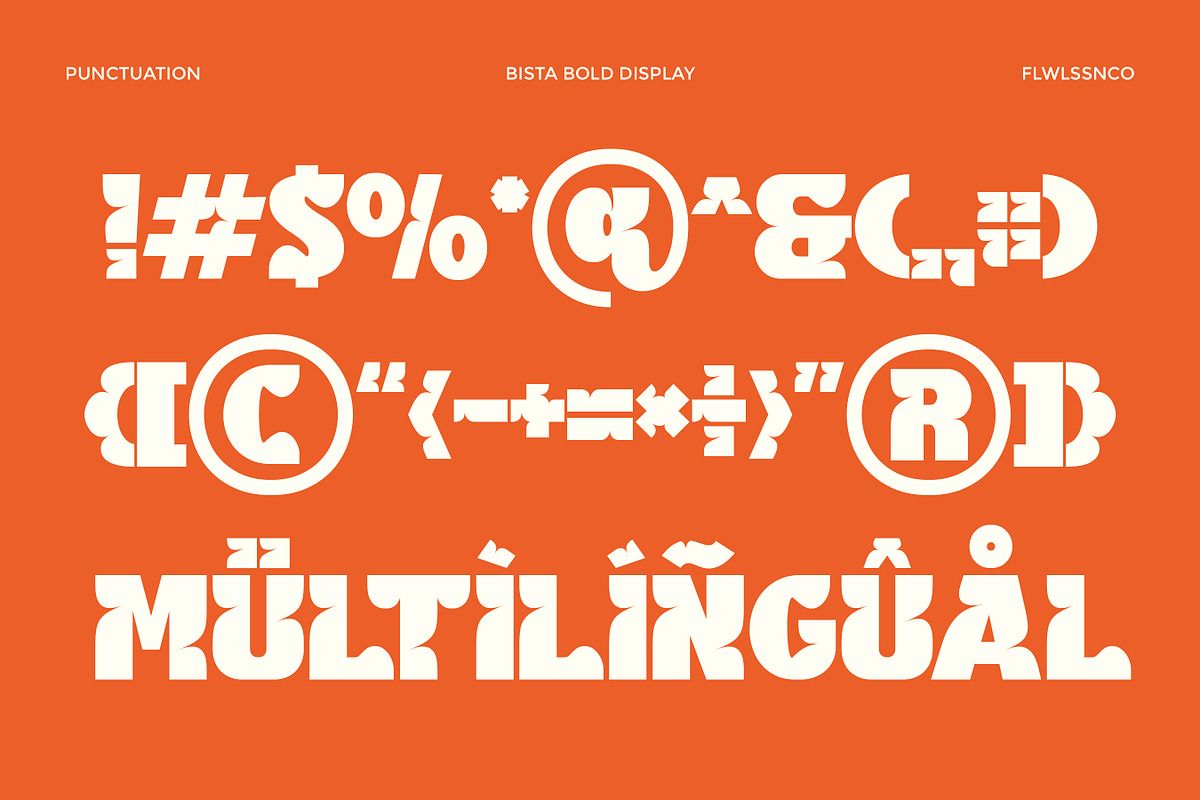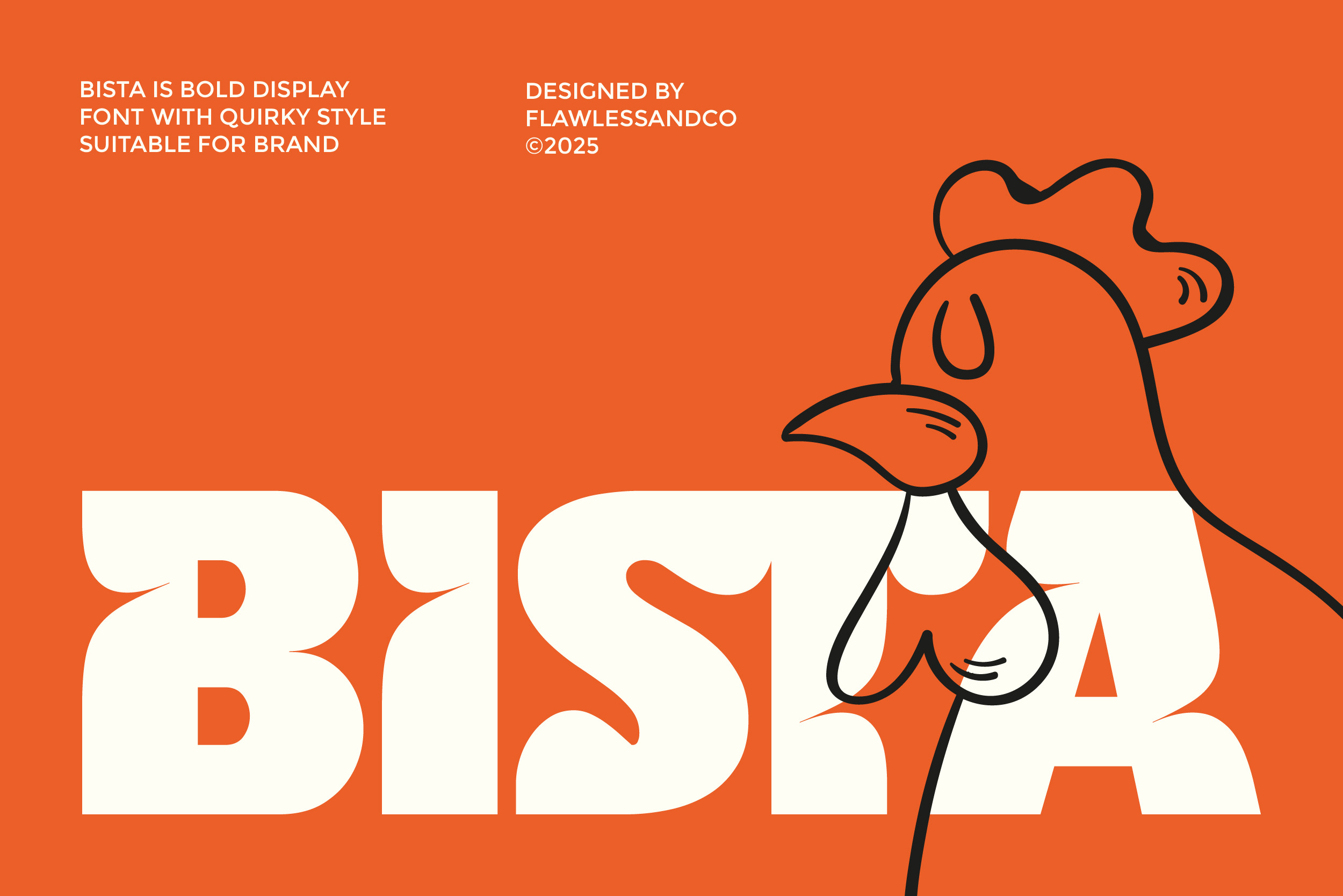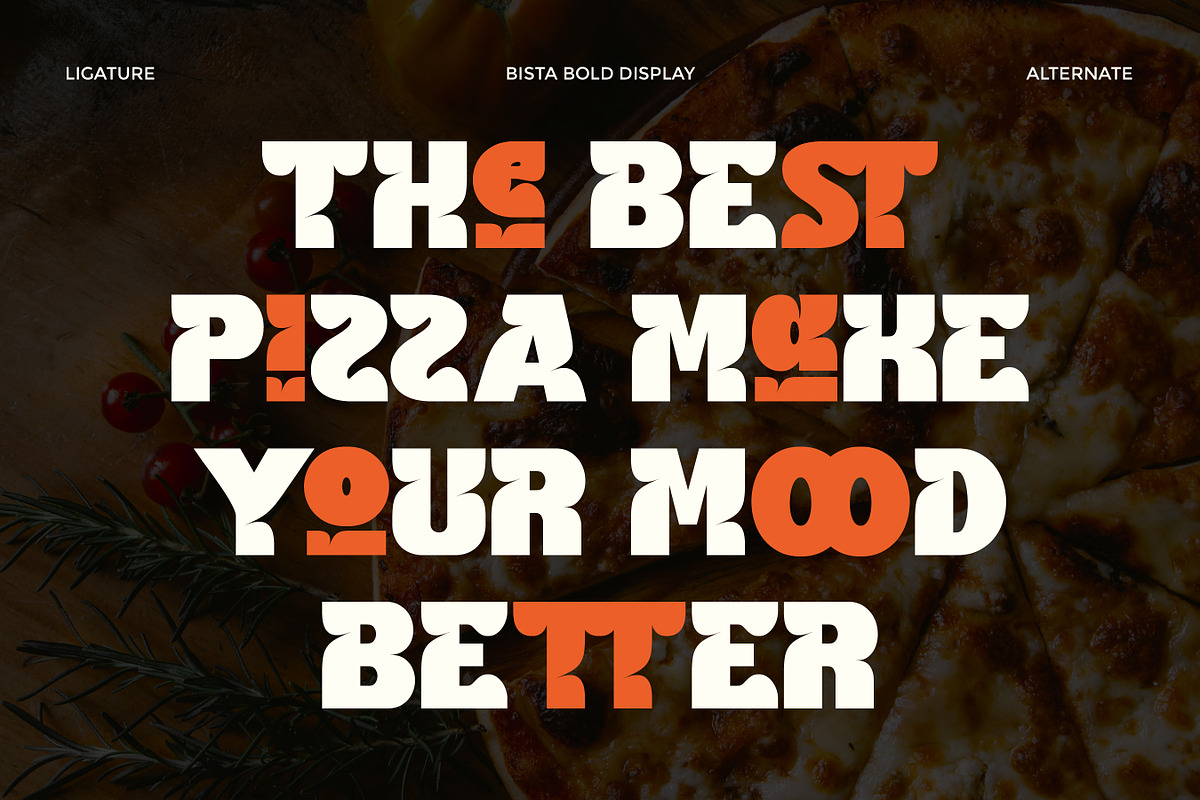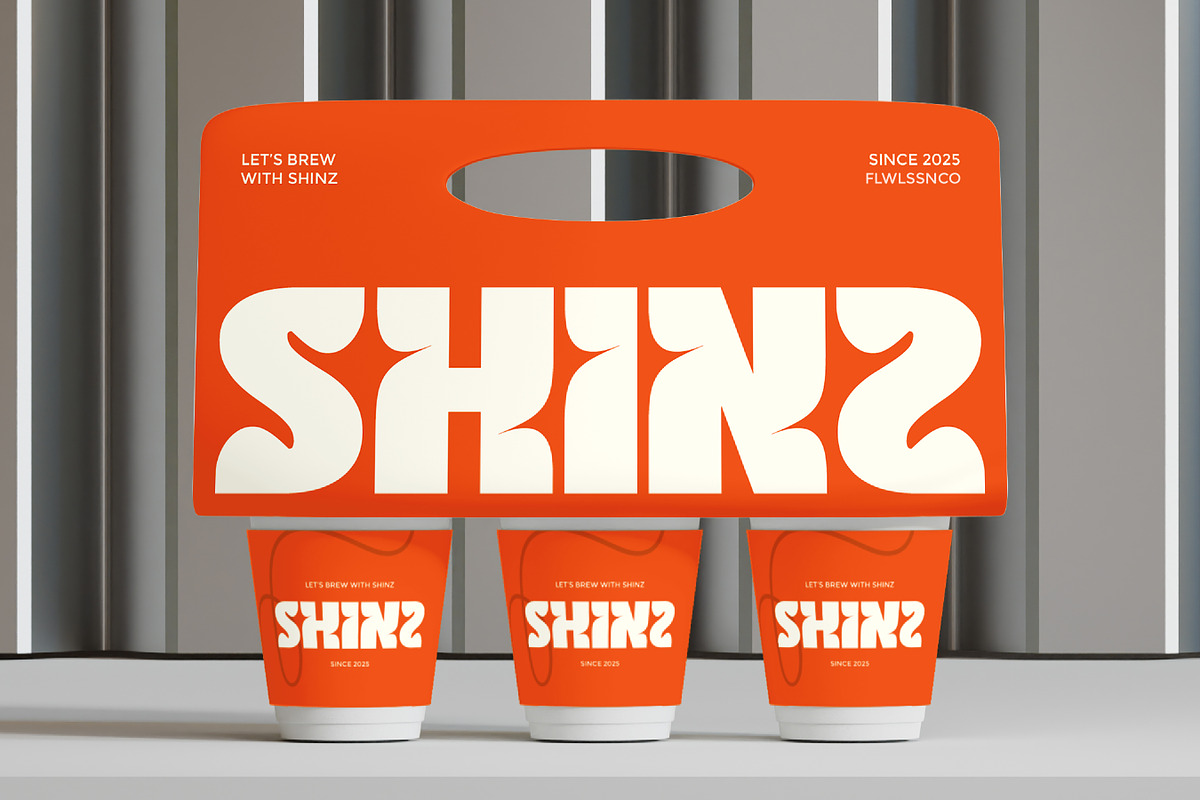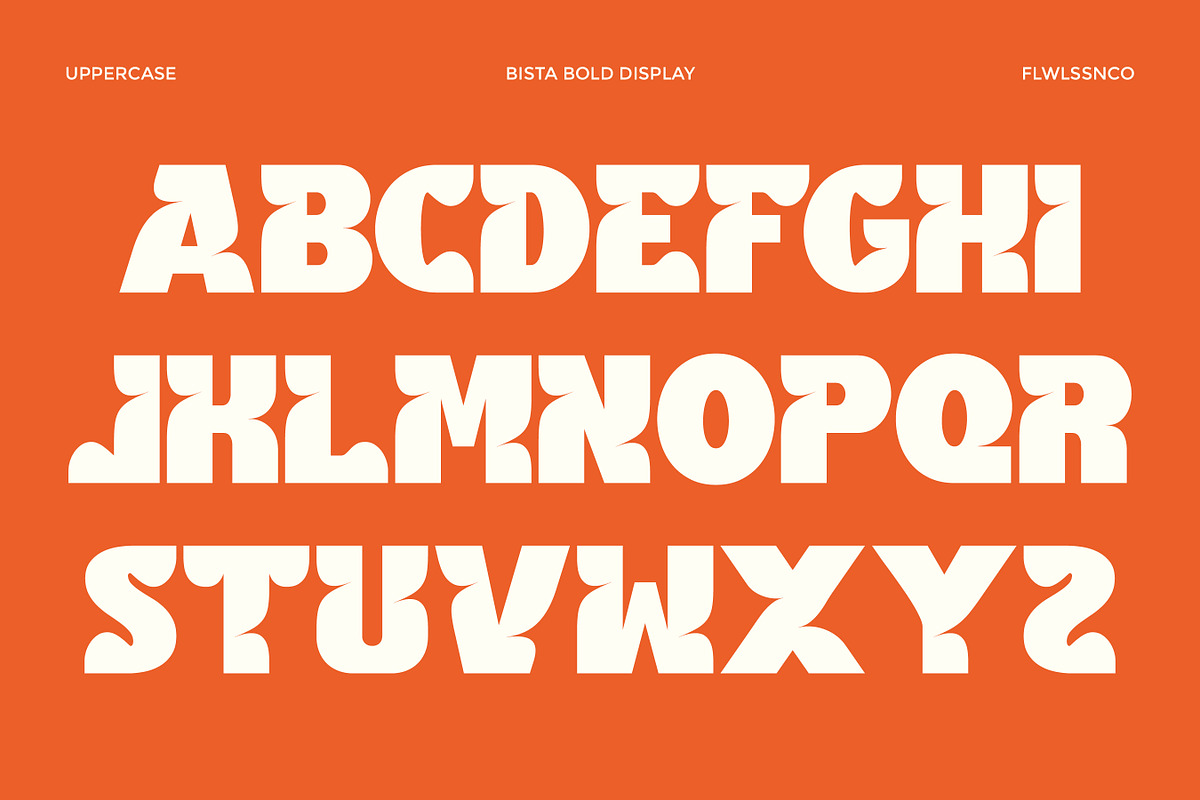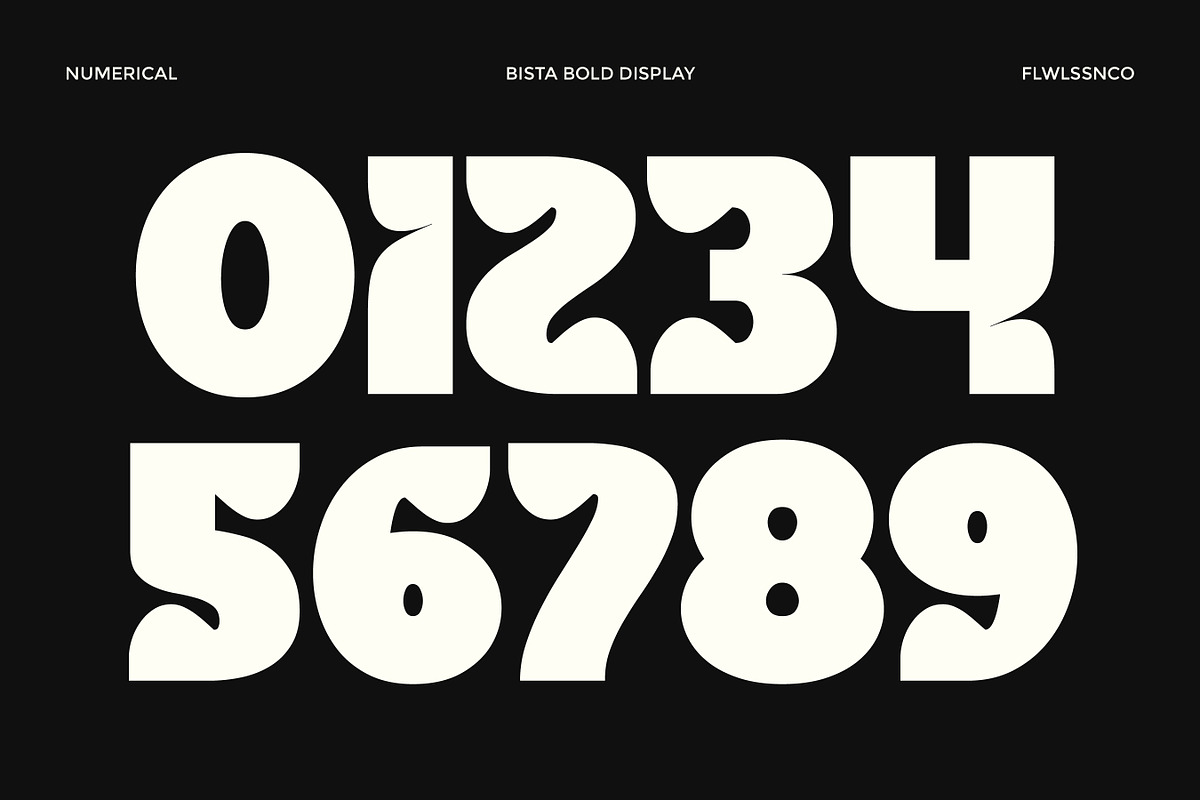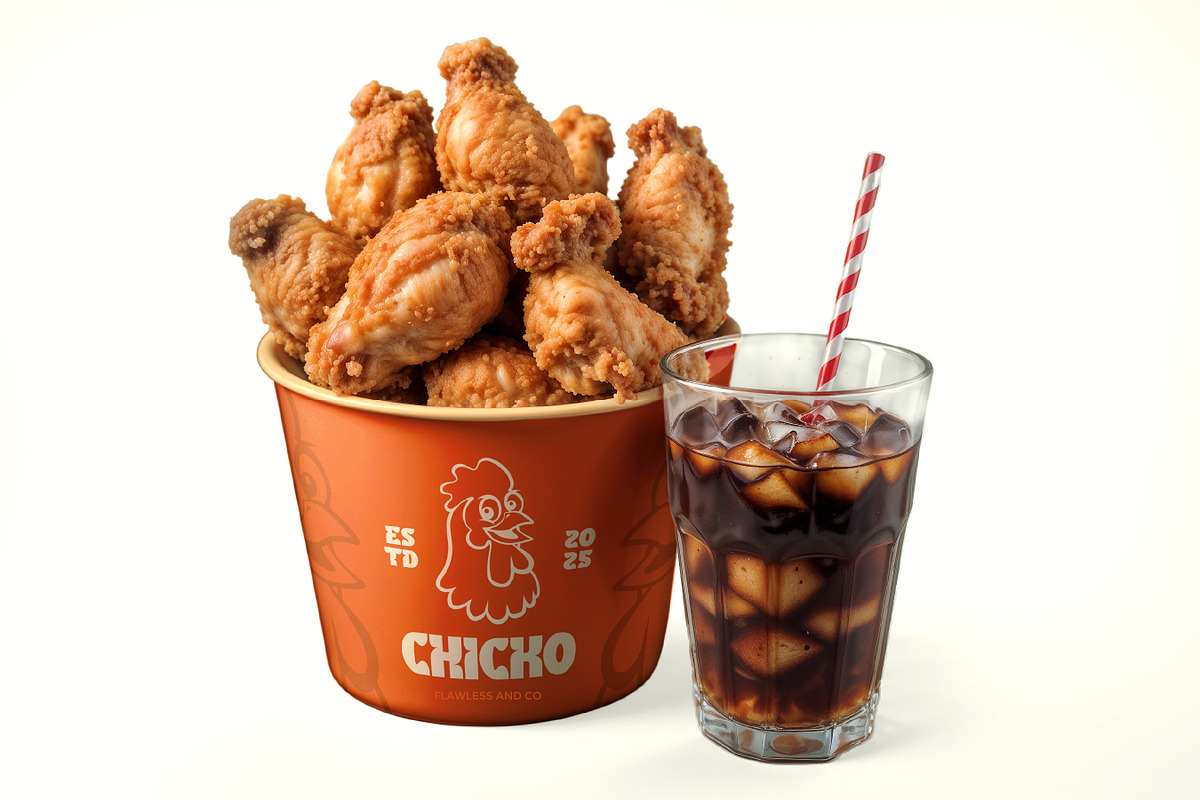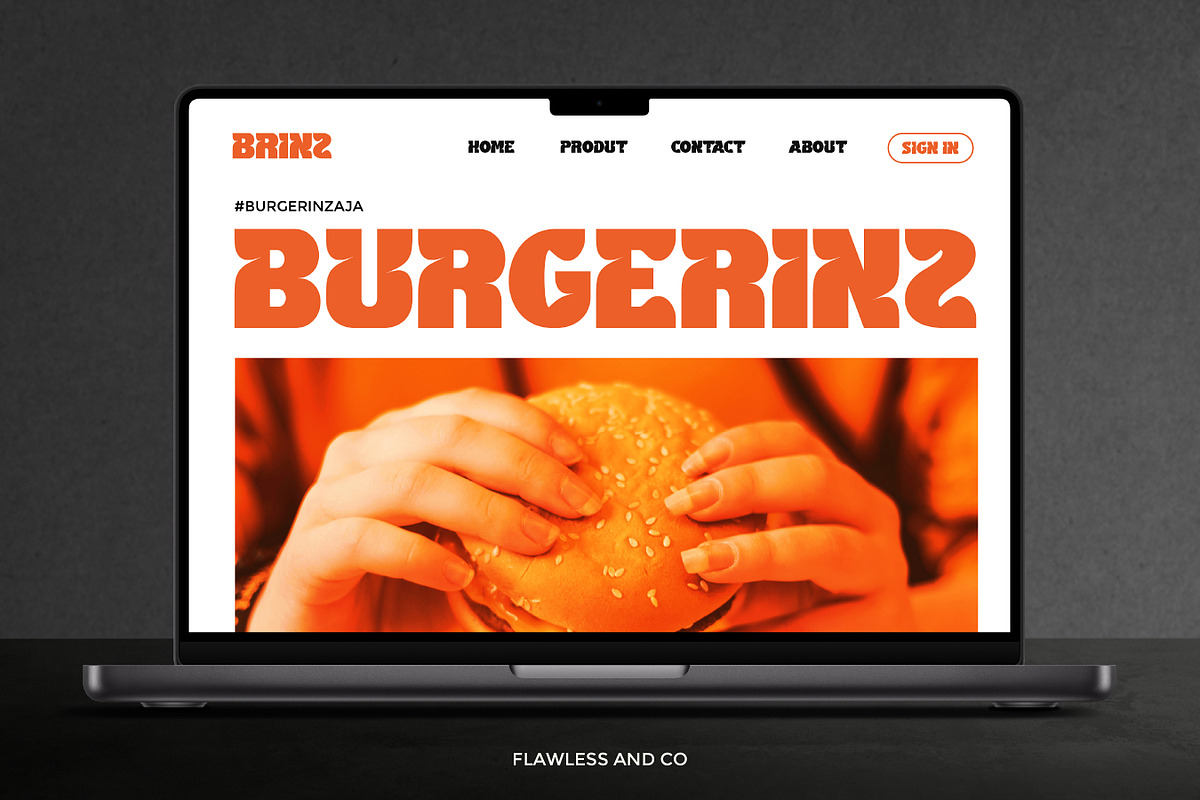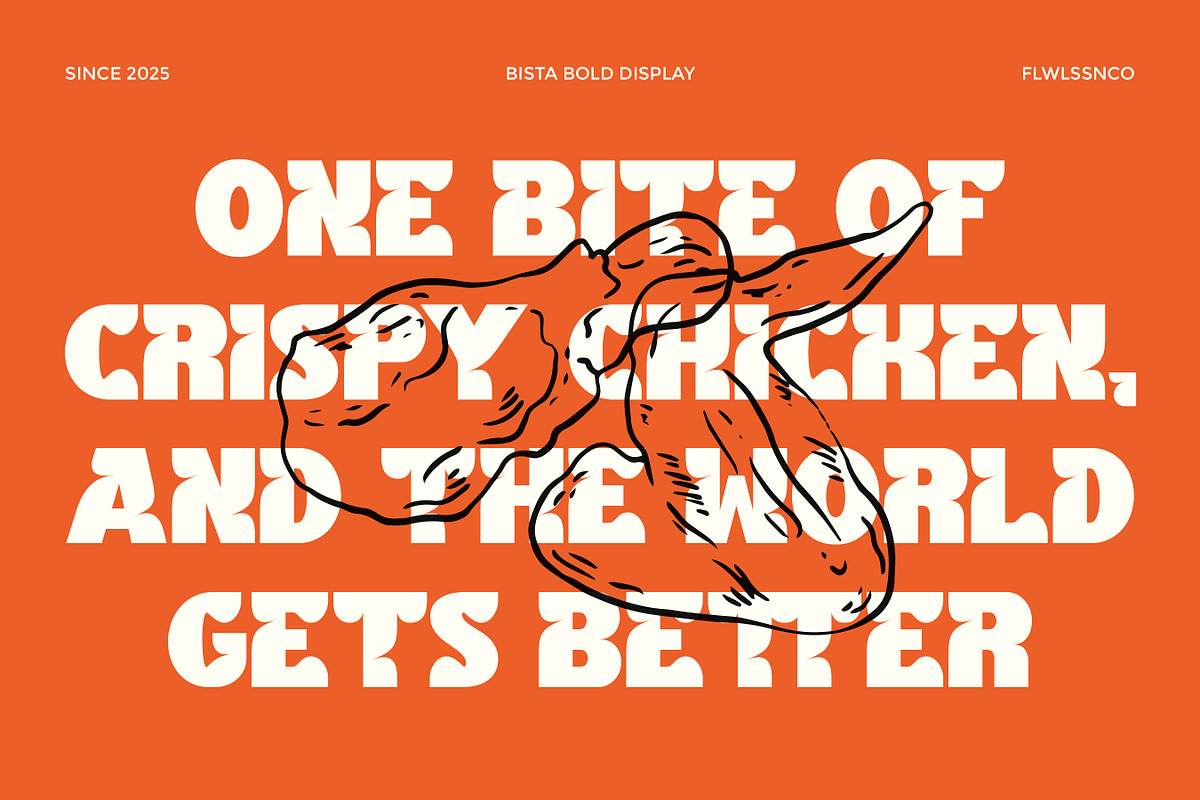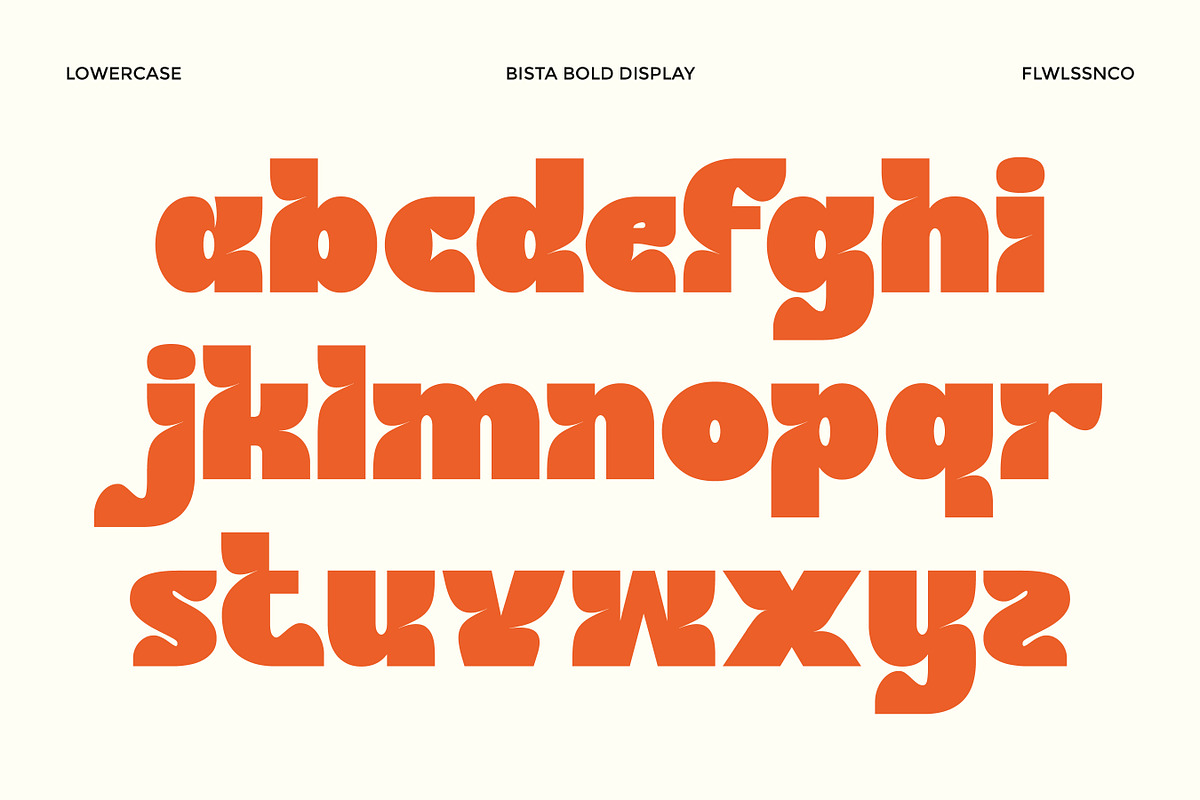
Bista - Bold Display Font
Bista is a bold display font with a playful quirky personality, designed to bring instant character to any project. With its chunky shapes, smooth curves, and unique letterforms, Bista delivers a fresh and friendly aesthetic that stands out effortlessly. This typeface is perfect for brands that want to look fun, expressive, and memorable—especially in creative industries that value bold visual identity. Whether used for packaging, logos, posters, or mascot-based branding, Bista adds a joyful touch that captures attention in just one glance.
Who Should Use Bista?
Bista is perfect for designers, brand owners, illustrators, and creatives who want to bring a bold, fun, and quirky vibe into their visual projects. If you’re building a brand that needs to feel friendly, expressive, and instantly recognizable, Bista is the ideal choice. It’s especially great for food brands, children’s products, playful mascots, and creative packaging concepts
A Must-Have Font for Brand and Logo Creators and Designers
Bista brings a fresh, quirky boldness that makes any brand feel lively and unforgettable. Its chunky shapes and playful character give designers a unique tool to craft standout logos, packaging, and visual identities. For creators who want designs that attract attention and leave a fun, lasting impression, Bista is an essential addition to the toolkit.
Why Choose Bista for Brand and Logo Projects?
Bista delivers a bold and quirky personality that instantly makes any brand feel fun, friendly, and memorable. Its strong shapes and unique curves give logos a standout look, perfect for creators who want designs with character and charm. Whether used on packaging, branding, or playful marketing visuals, Bista brings the energy and personality that helps a brand shine.